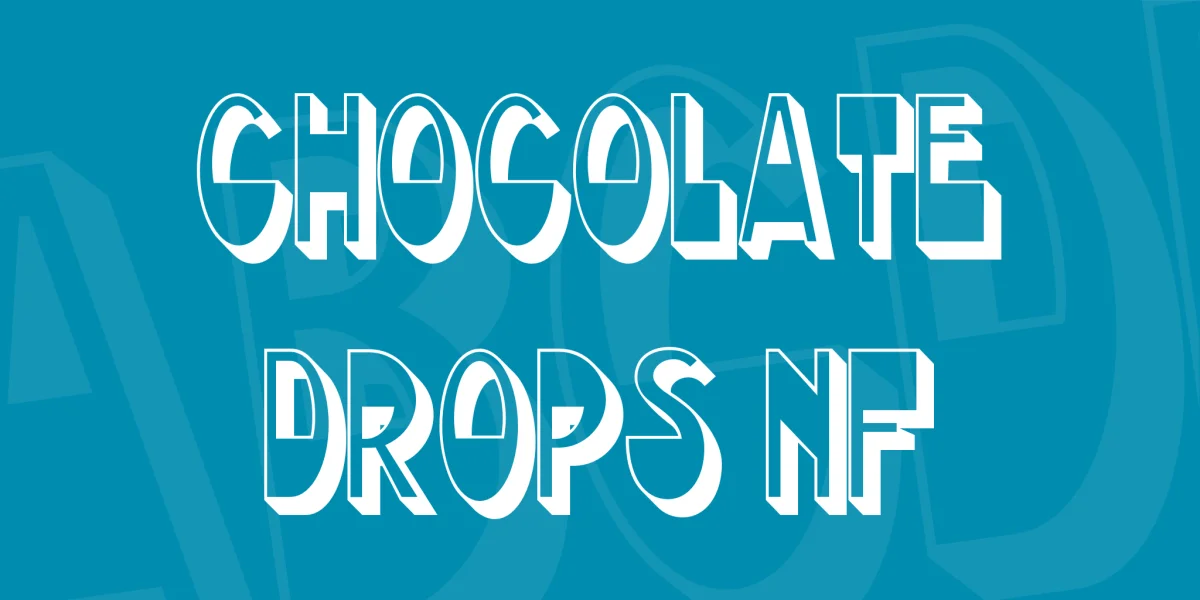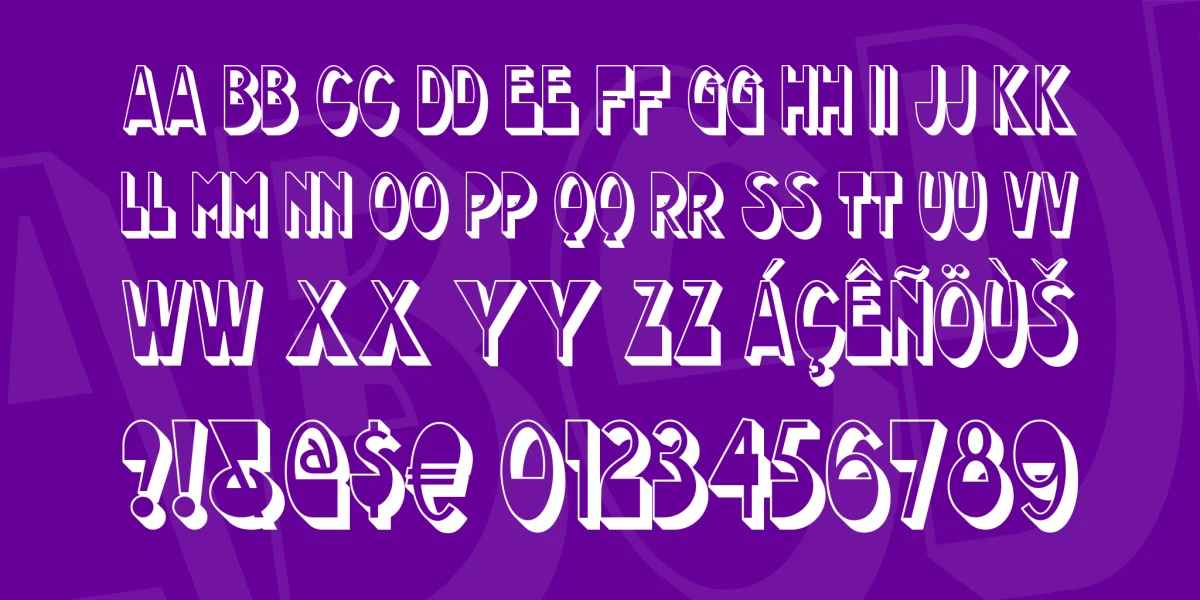
Another gem from the Library of Congress online collection of sheet music covers. Published by Harry von Tilzer in 1902, the song lends its name to the font. The designer of this charming flight of fancy, unfortunately, was not credited.